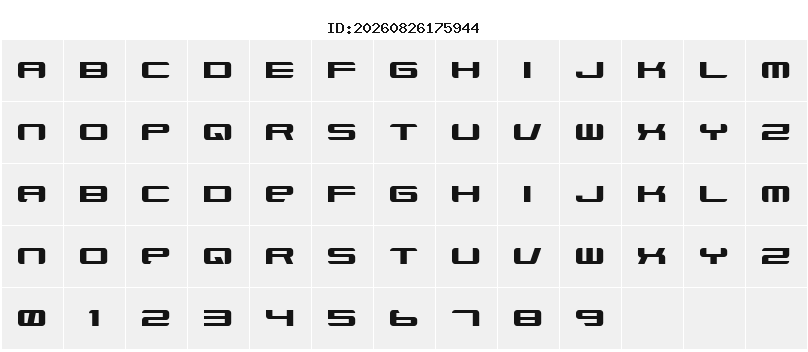
Xenotron Broadstroke Preview
• Font Name: Xenotron Broadstroke
• Full Font Name: Xenotron Broadstroke
About Xenotron Broadstroke.ttf
Xenotron Broadstroke.ttf is a modern, elegant sans-serif font designed for ultimate readability and visual harmony. Perfect for branding, headlines, web design, and print materials.